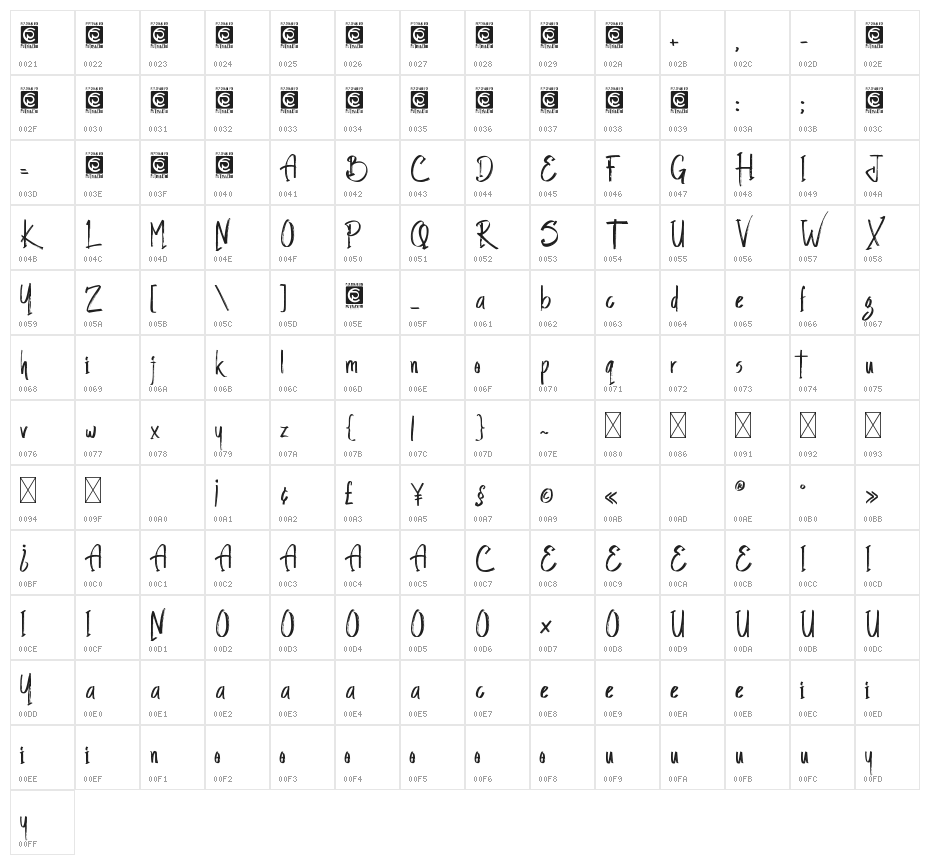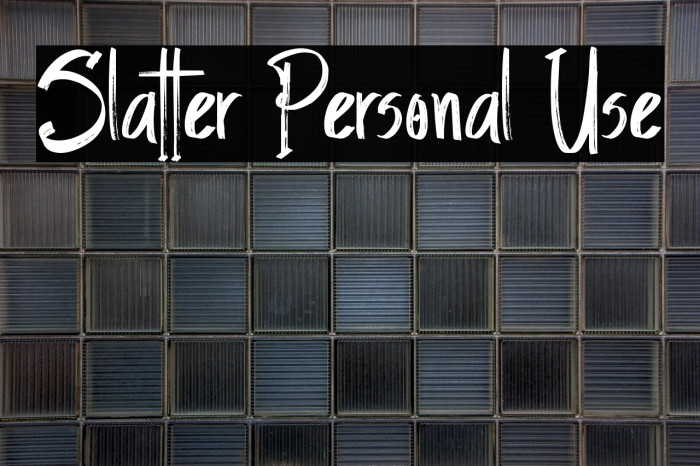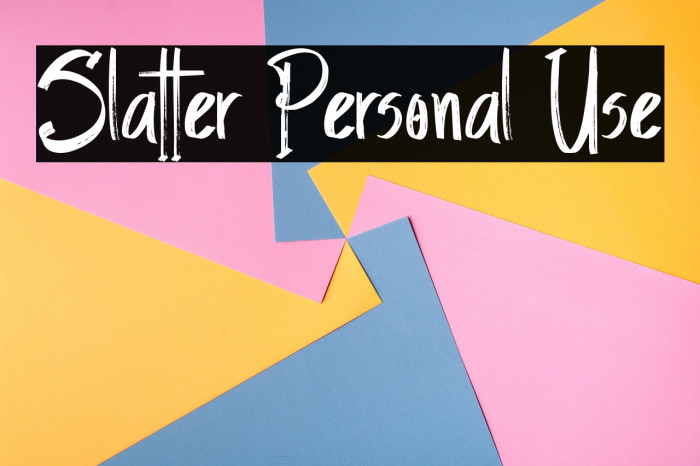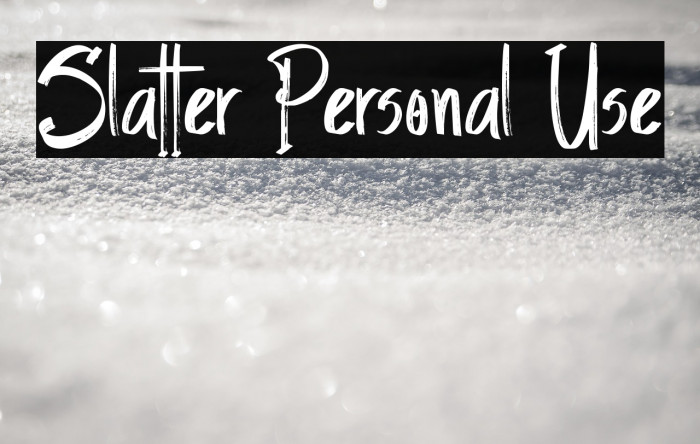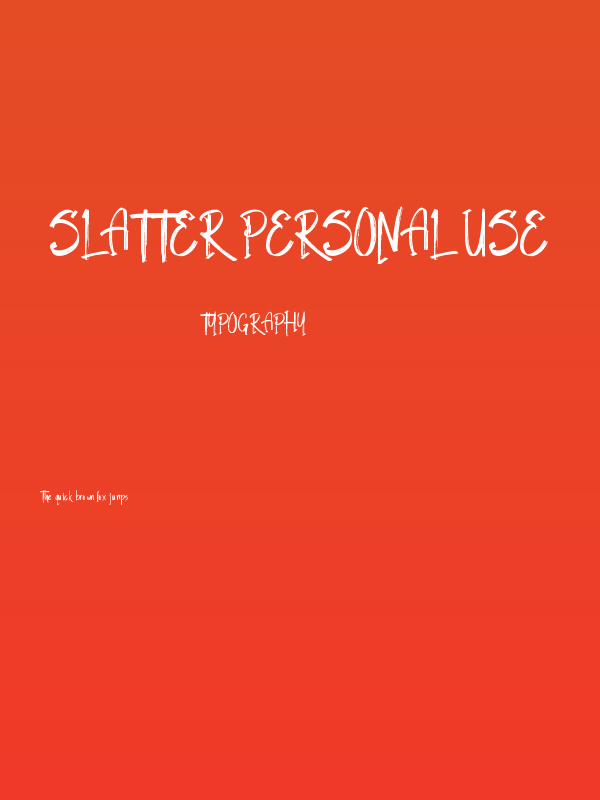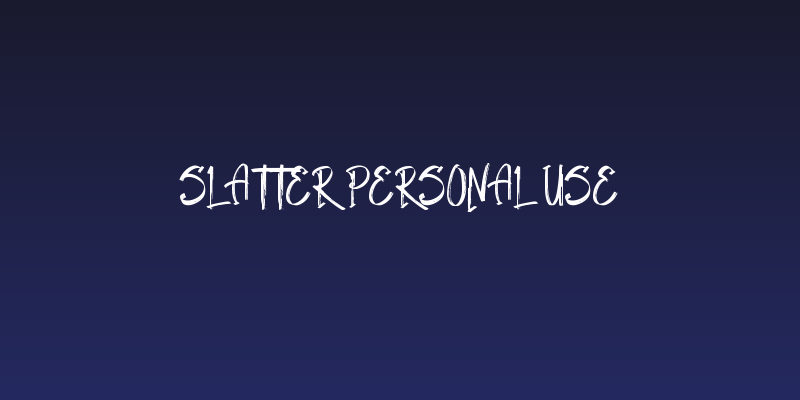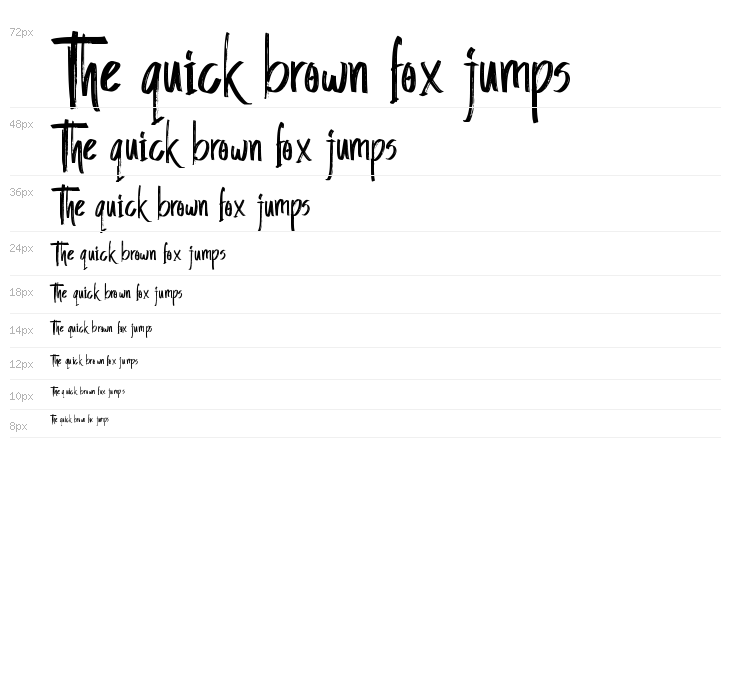
Slatter Personal Use Font
Slatter Personal Use Description
This font features a bold, expressive style with a hand-drawn appearance. The uppercase letters are tall and slightly irregular, giving a dynamic and energetic feel. The lowercase letters maintain a consistent flow, with some characters extending below the baseline, adding to the casual and artistic vibe. The strokes are uneven, with a brush-like texture that enhances its handcrafted look. This font is perfect for projects that require a personal touch, such as invitations, posters, or branding that seeks to convey creativity and individuality.
| Use Case | Logos, Headlines, Posters |
| Proposed Projects | Ideal for creative projects like posters, invitations, and unique branding. |